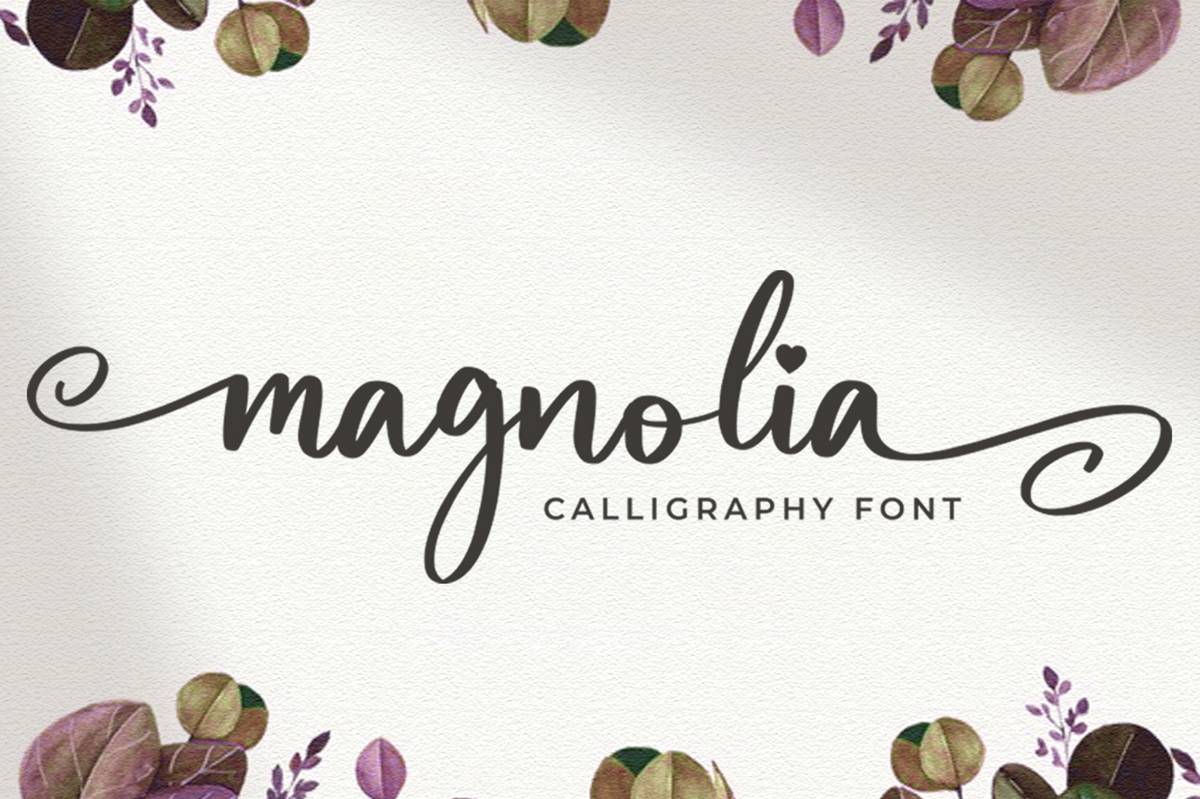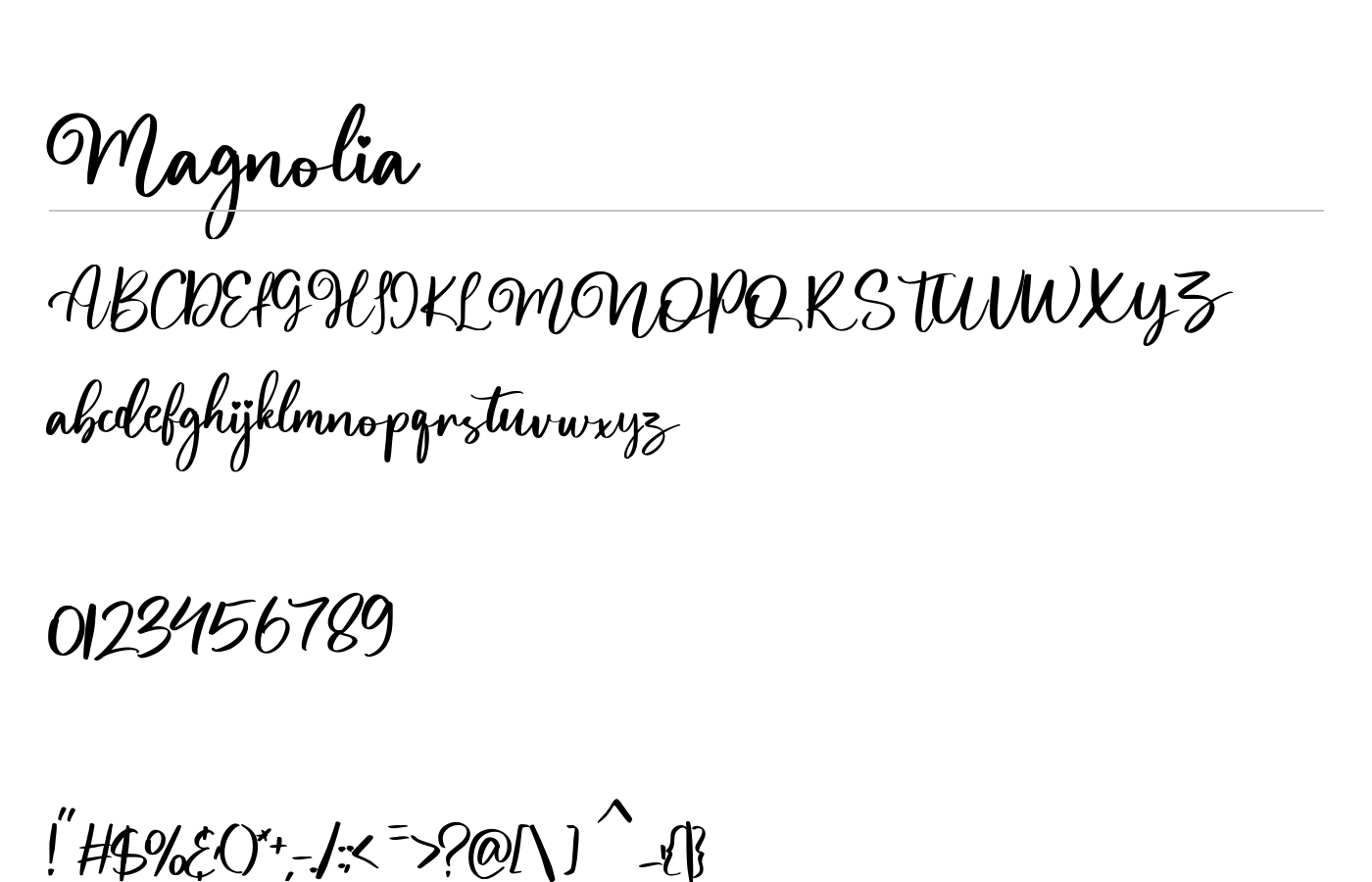
Magnolia is a charming script font with a handwritten feel, featuring smooth, flowing strokes and a lively, casual elegance. Its medium weight and clear letterforms make it perfect for adding a personal, creative touch to invitations, branding, and social media designs while maintaining readability and style. This font works best where warmth and friendliness are desired, such as in lifestyle projects, boutique logos, and cheerful headlines.
Magnolia Font